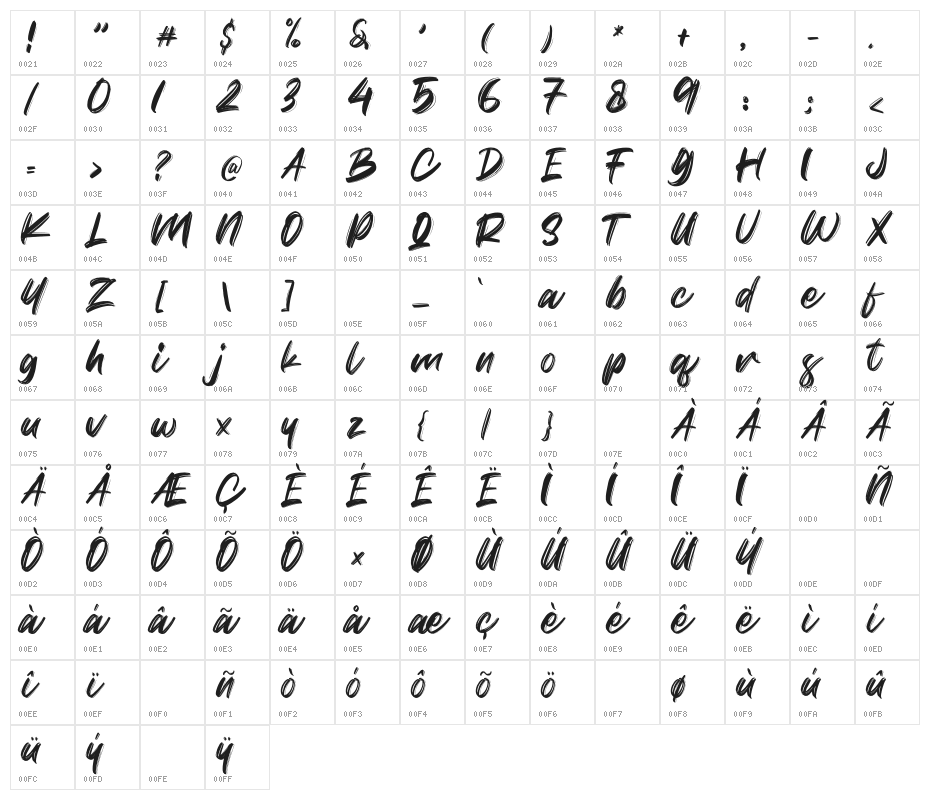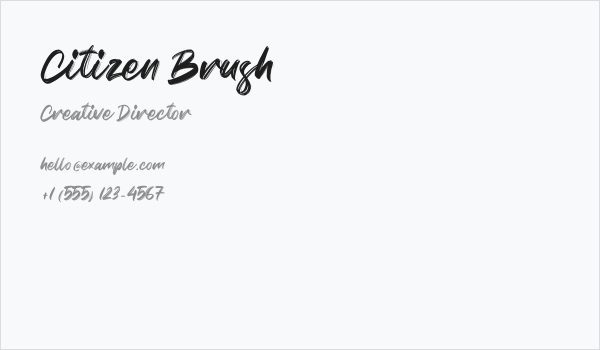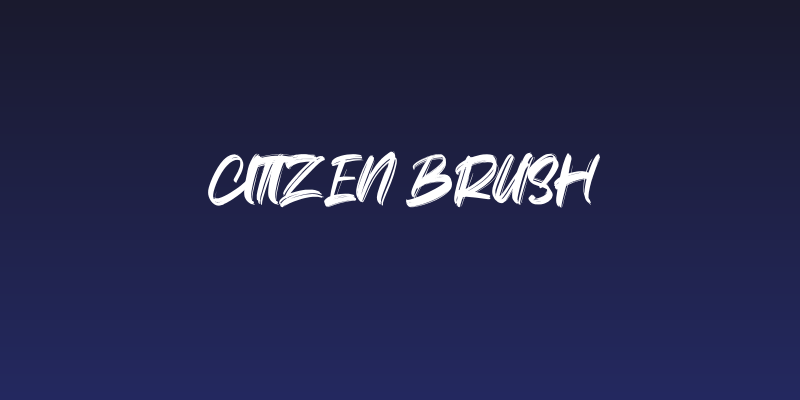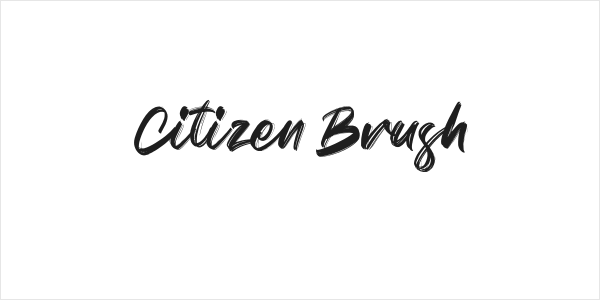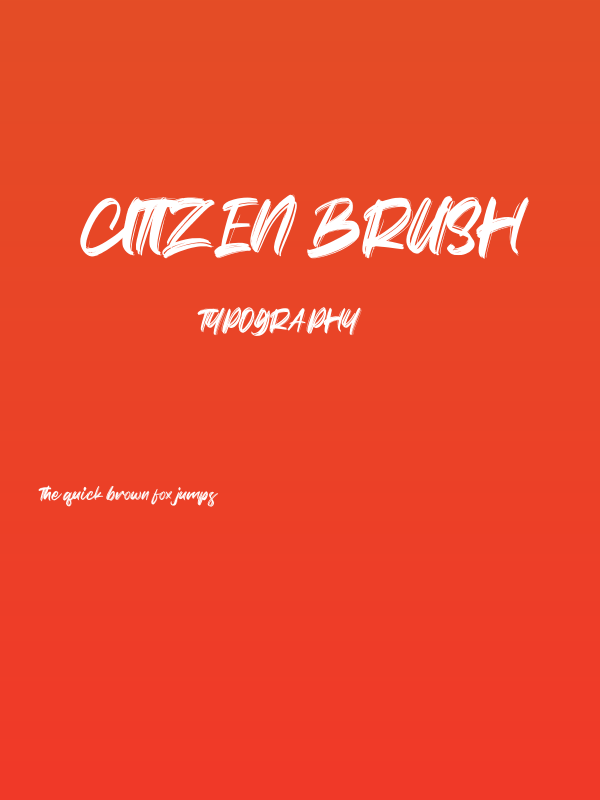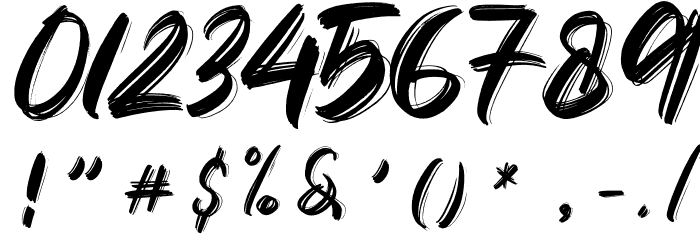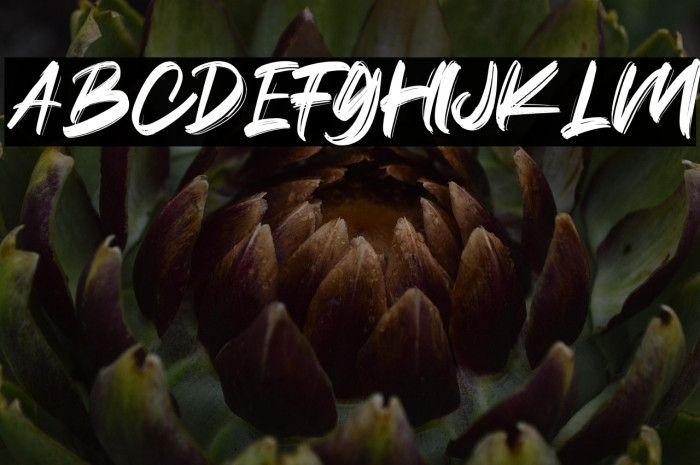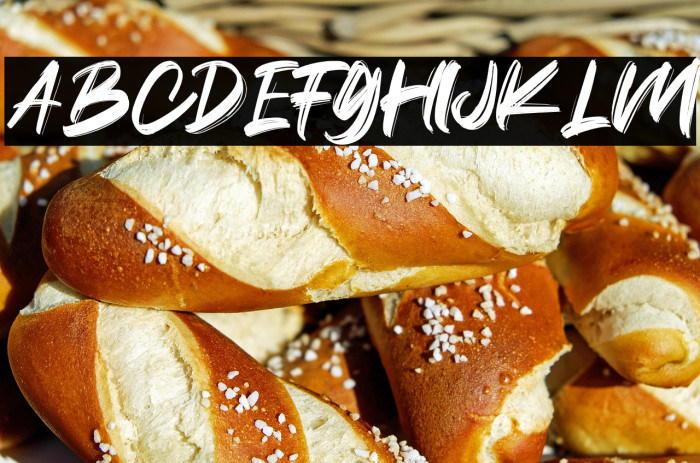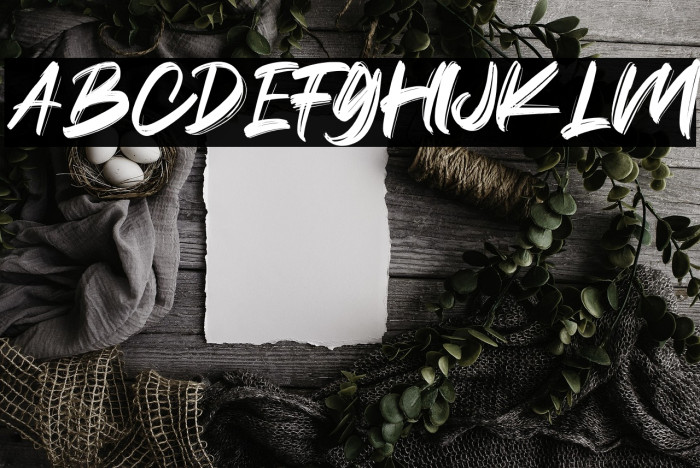
Citizen Brush Font
Citizen Brush Description
This font exudes a dynamic and energetic vibe, characterized by its bold, brush-like strokes that create a sense of movement and fluidity. The letters are crafted with a natural, hand-painted appearance, giving it an authentic and artistic feel. The uppercase and lowercase letters maintain a consistent style, with varying stroke thickness that adds depth and texture. The numerals and special characters follow the same expressive design, ensuring a cohesive look across all elements. This font is ideal for projects that require a personal touch, such as branding, posters, or creative invitations.
| Overall Style | Artistic, Dynamic |
| Proposed Projects | Perfect for branding, posters, creative invitations, and artistic projects. |